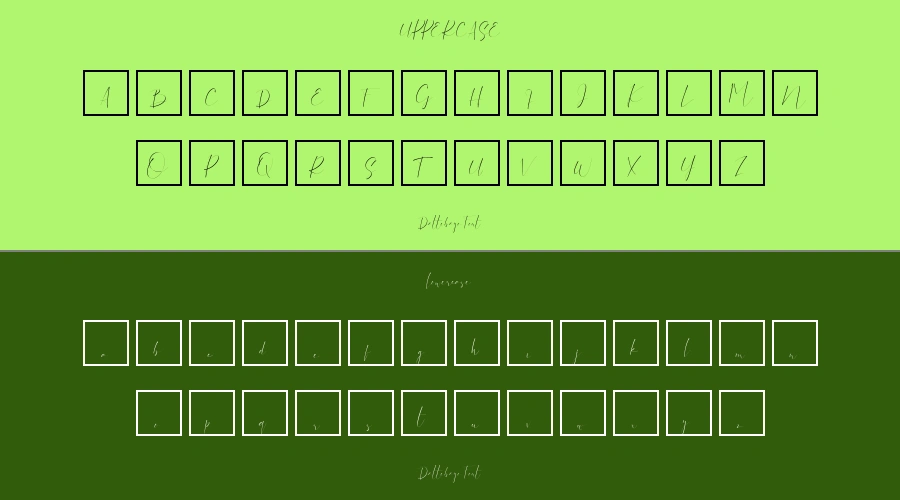
About Dattebayo Font
Dattebayo Font represents a sophisticated approach to type design, balancing balanced proportions with clarity. Perfect for product naming, this font family showcases impressive durability and market confidence throughout its character set. Designers appreciate its versatility and reliability.
Designers will appreciate nuanced touches including concave curves and contextual ligatures, adding sophistication to any project. These features become apparent in ceremonial texts, where screen rendering matters most. The careful treatment of counter shape and lifestyle alignment ensures optimal performance.